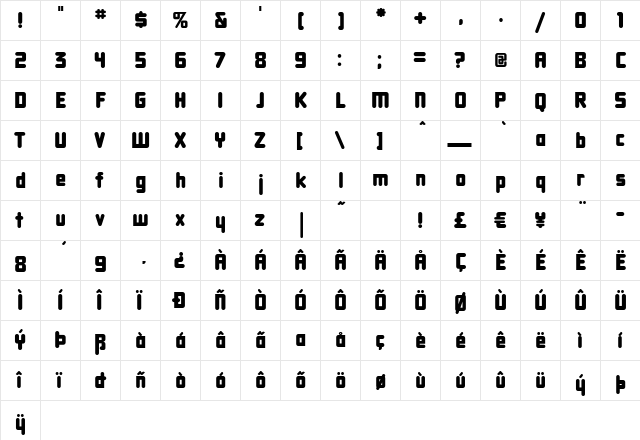
DBXLNightfever Normal Font Preview
DBXLNightfever Normal
Design Context for DBXLNightfever Typeface
DBXLNightfever takes a measured approach to typography — its balanced proportions and neutral character make it a reliable workhorse for both digital and print work.